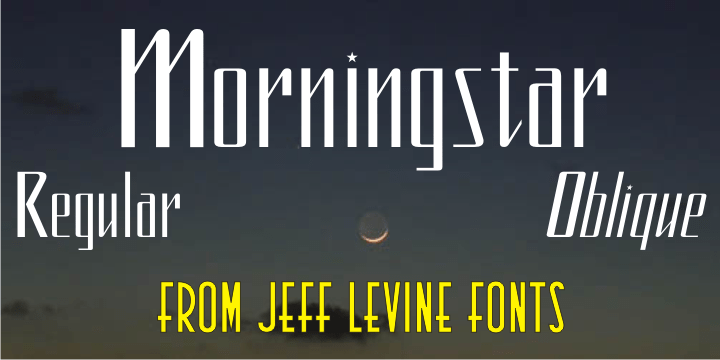
Morningstar
Her father named her Estella Dawn, or morning star. She truly shines bright, for as the owner of Stella Roberts Fonts, she has dedicated part of her net profits to helping her siblings pay for their medication; they both suffer from Cystic Fibrosis and diabetes.
Calm in spirit, loyal to friends and family, nurturing and caring – Stella has been a friend of Jeff Levine's for years. His Estella JNL font was dedicated to her, as is this other namesake font, Morningstar JNL.
The design is a cross between retro-techno and a slight calligraphic touch.